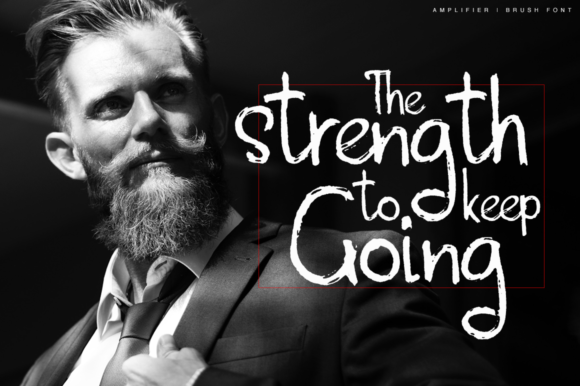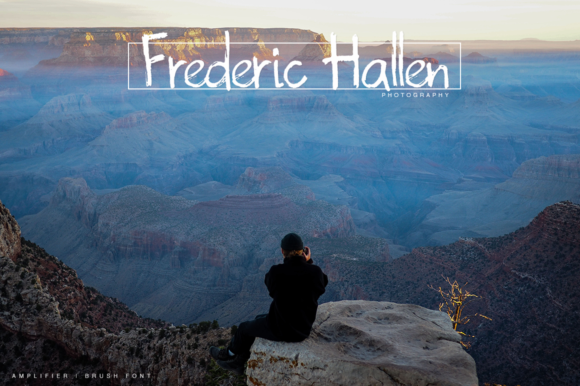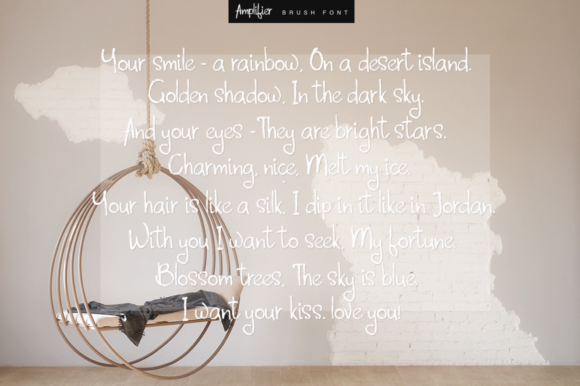
Amplifier Font
About Amplifier Font
Amplifier is a beautiful dry brush font, ideal for use in projects that need a textured yet restrained look. This legible, thin stroke font is a great way to give your works a relaxed vibe.